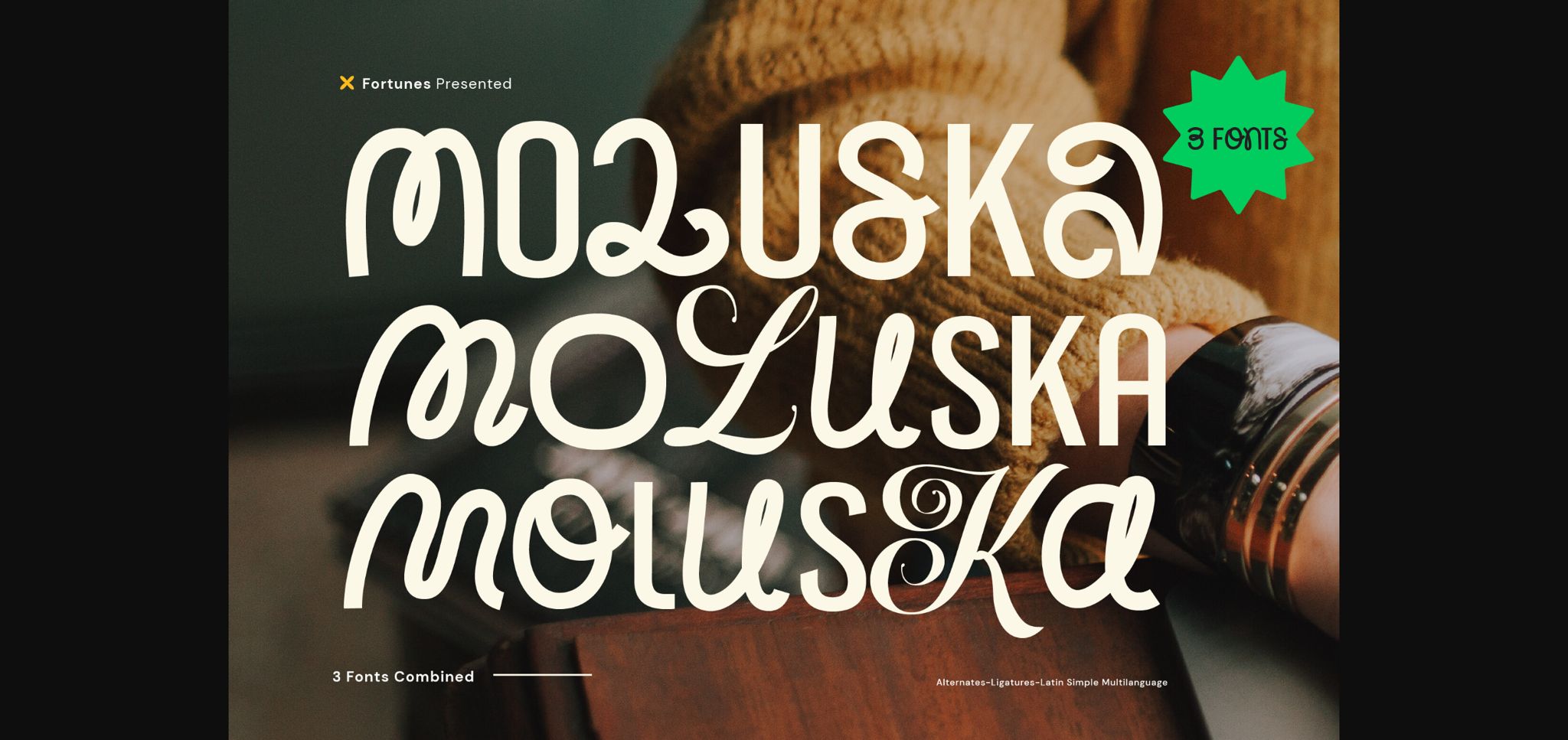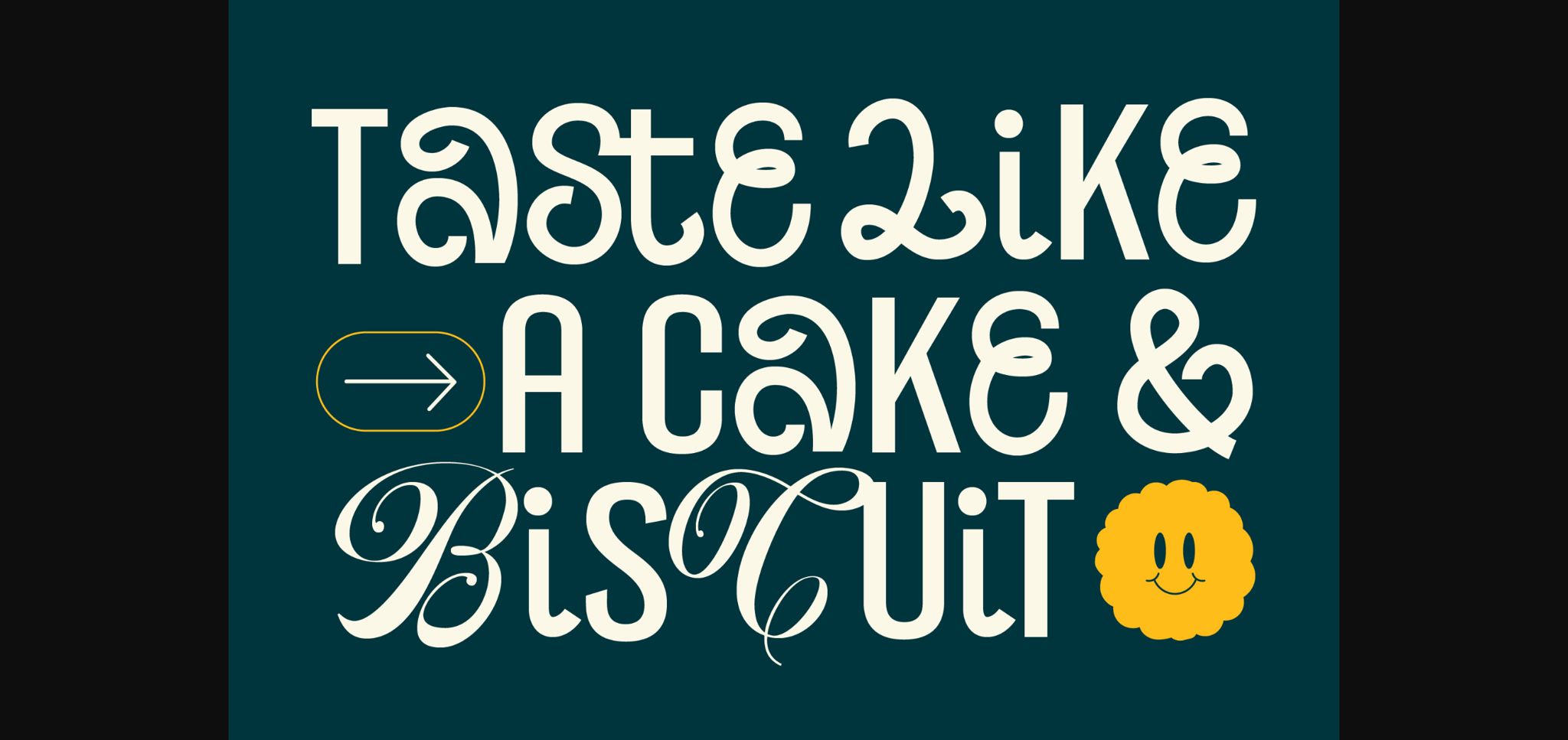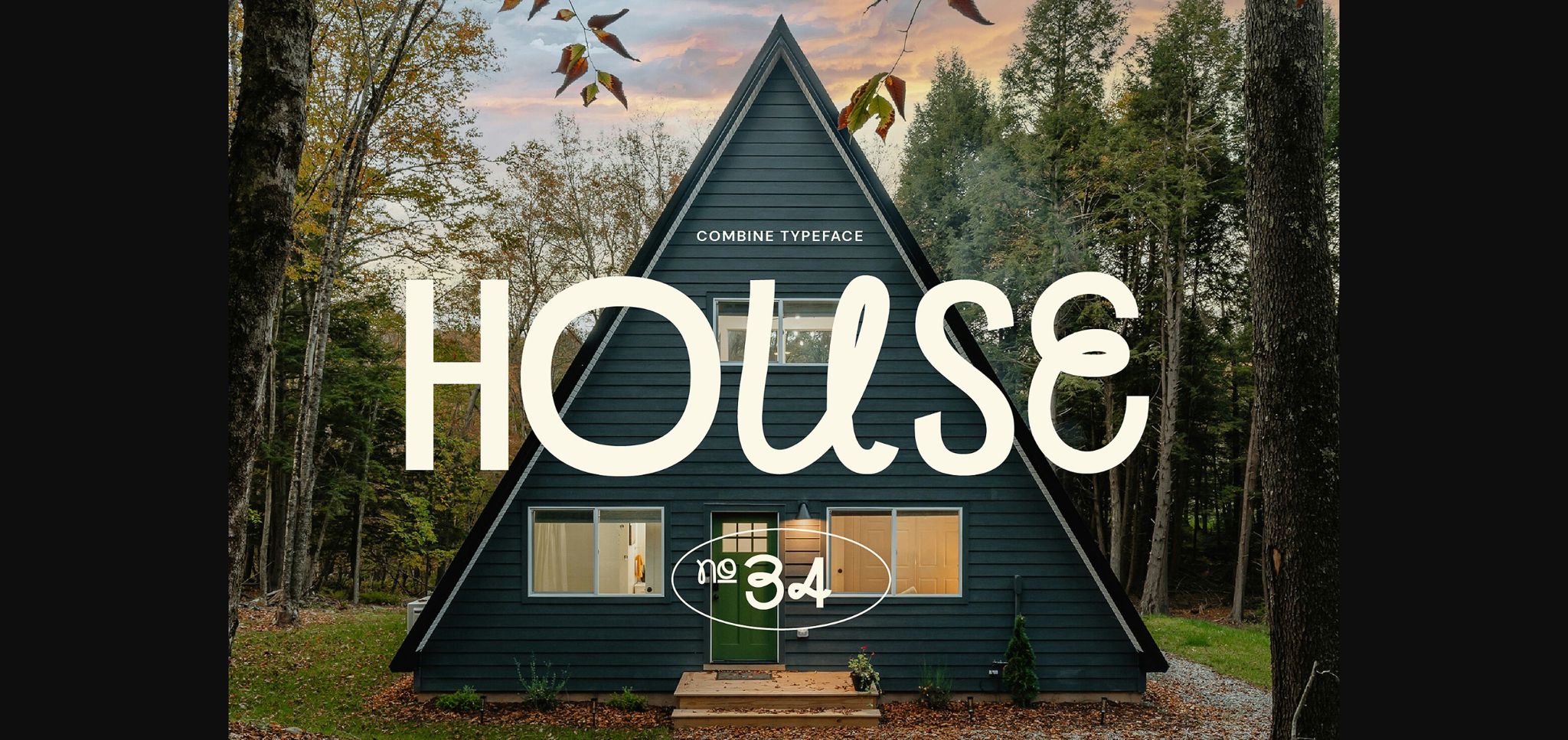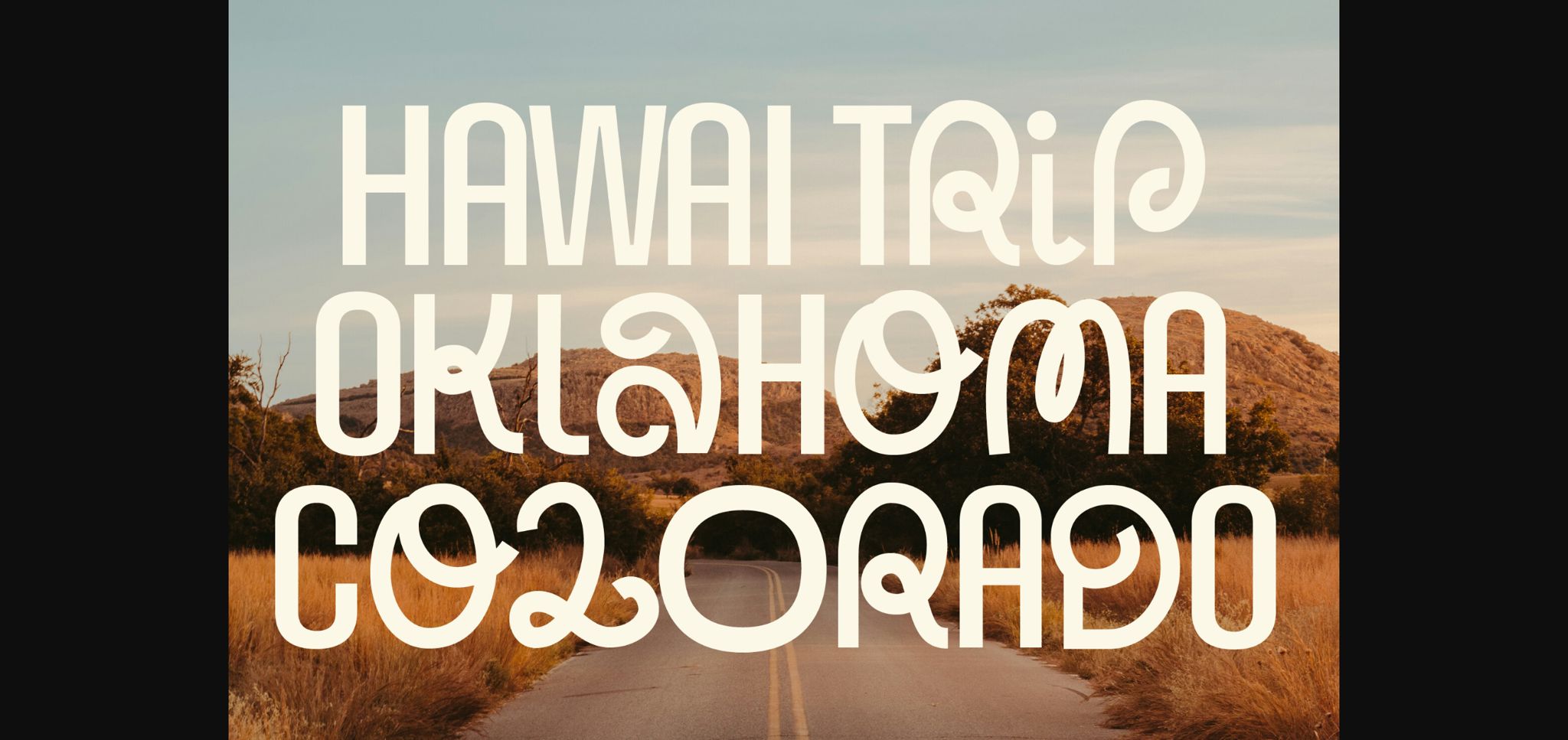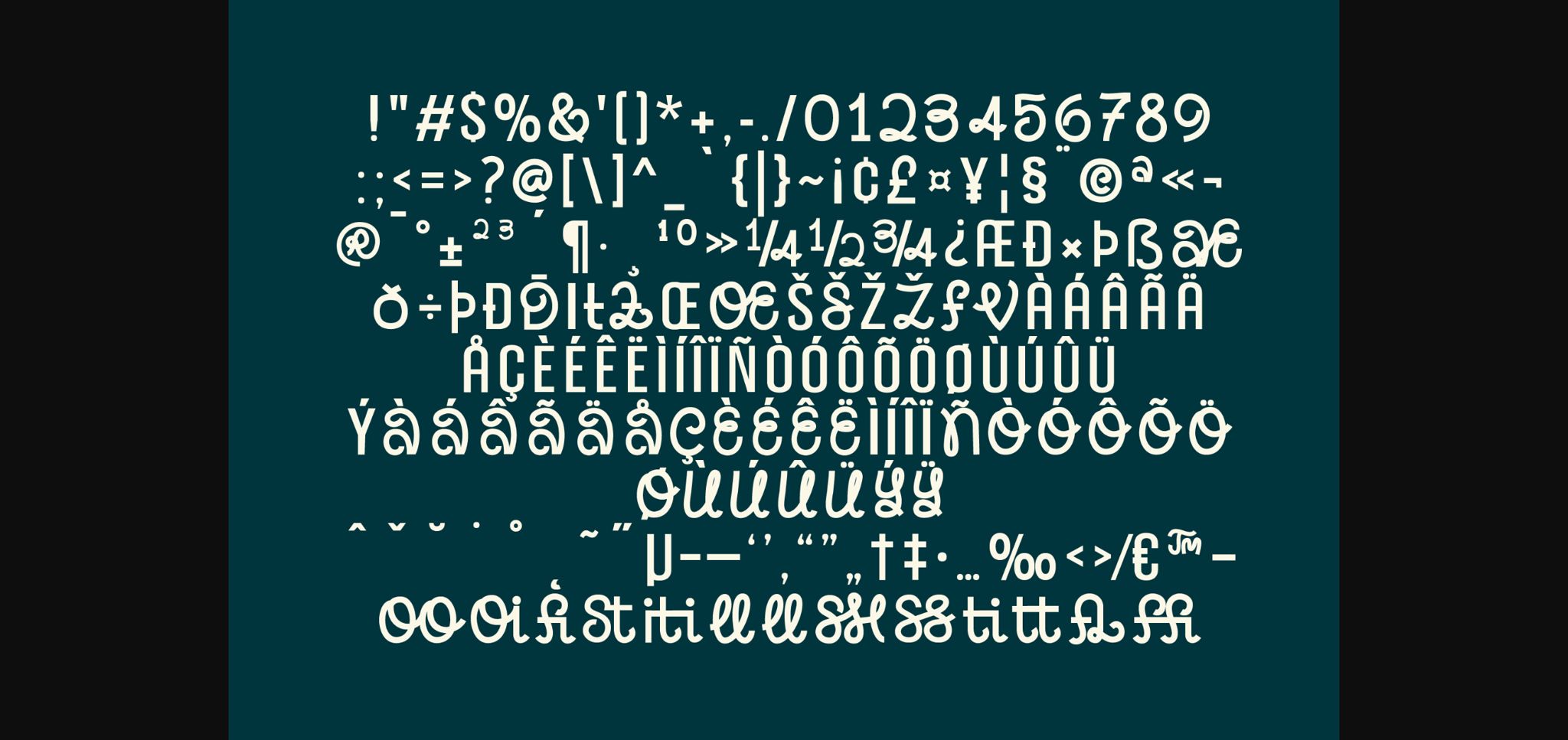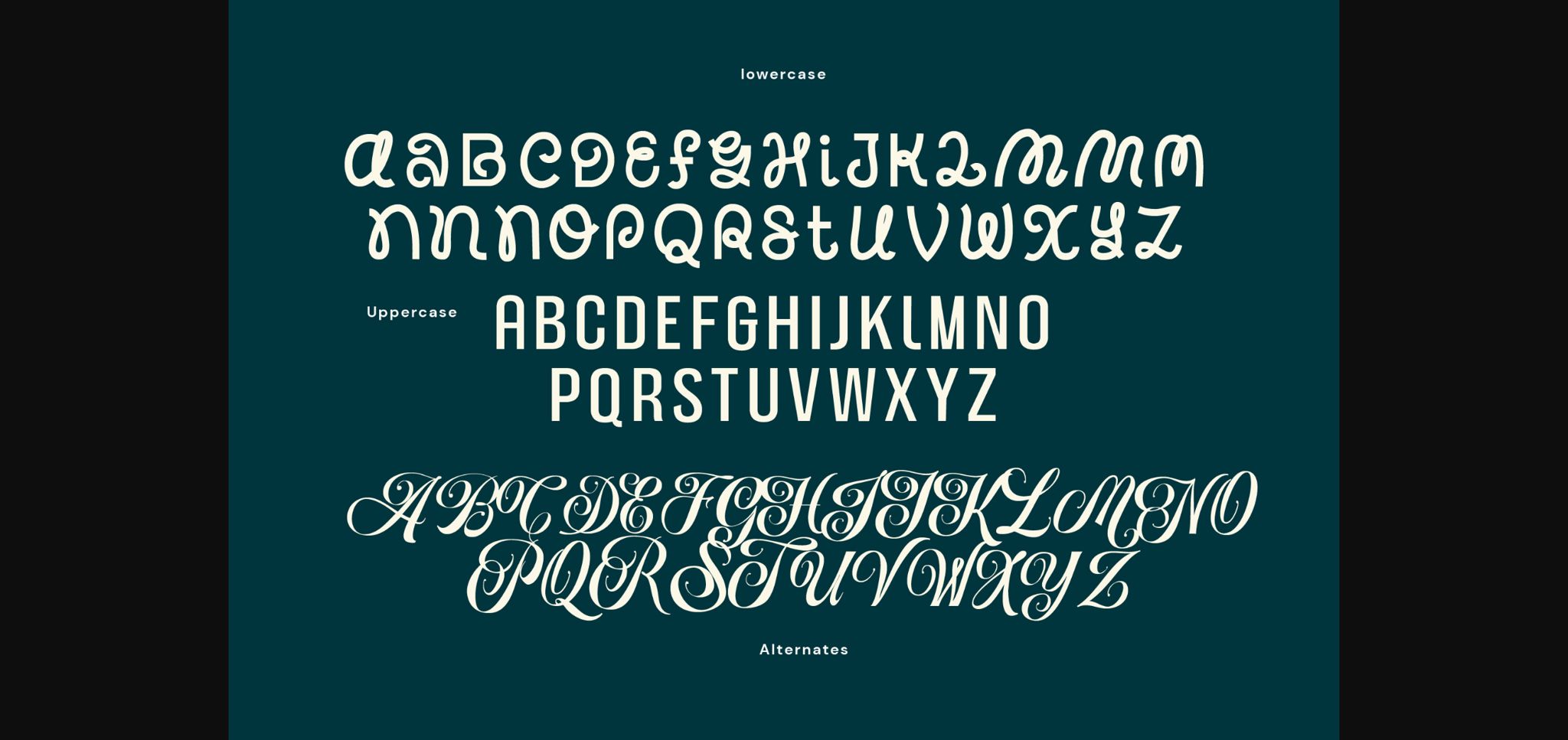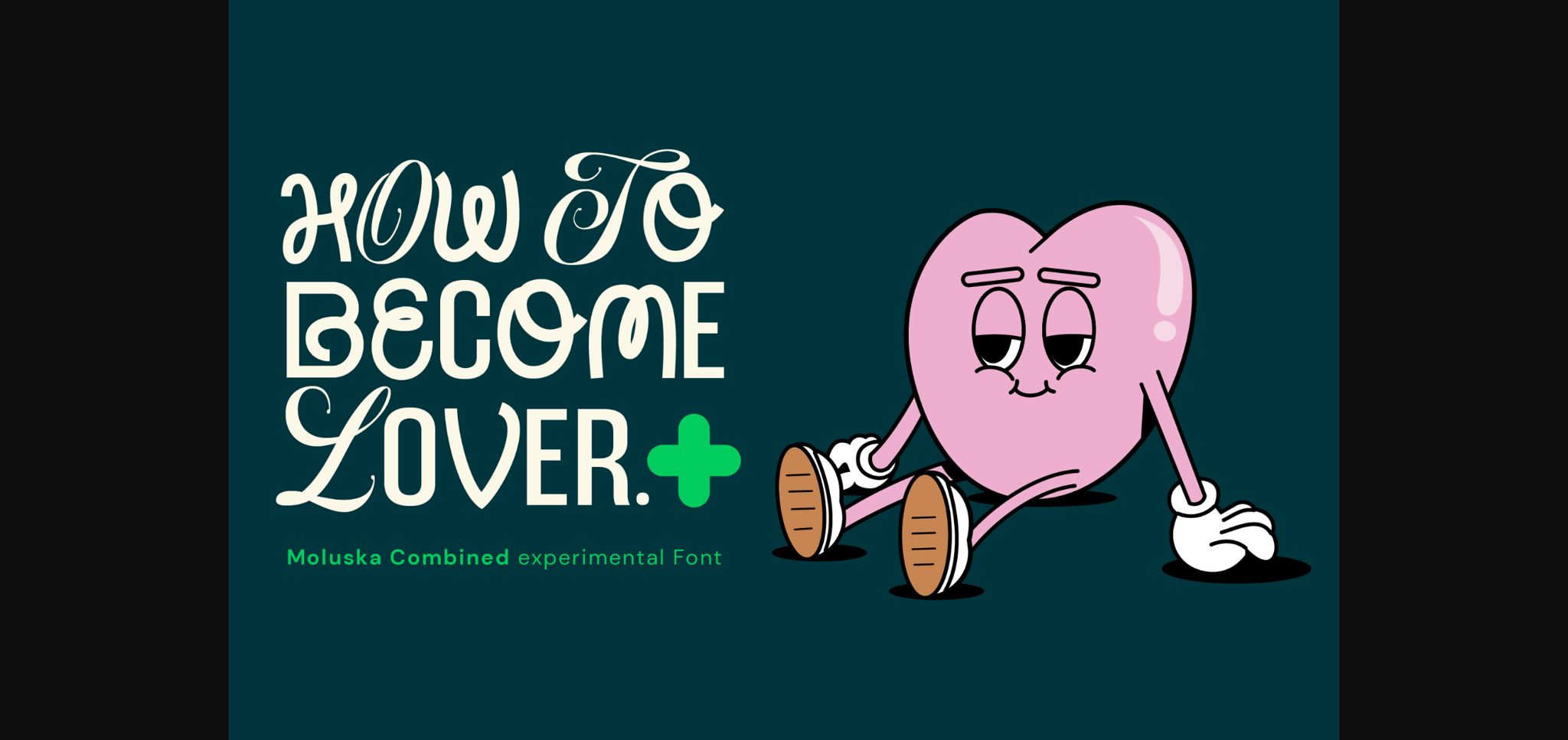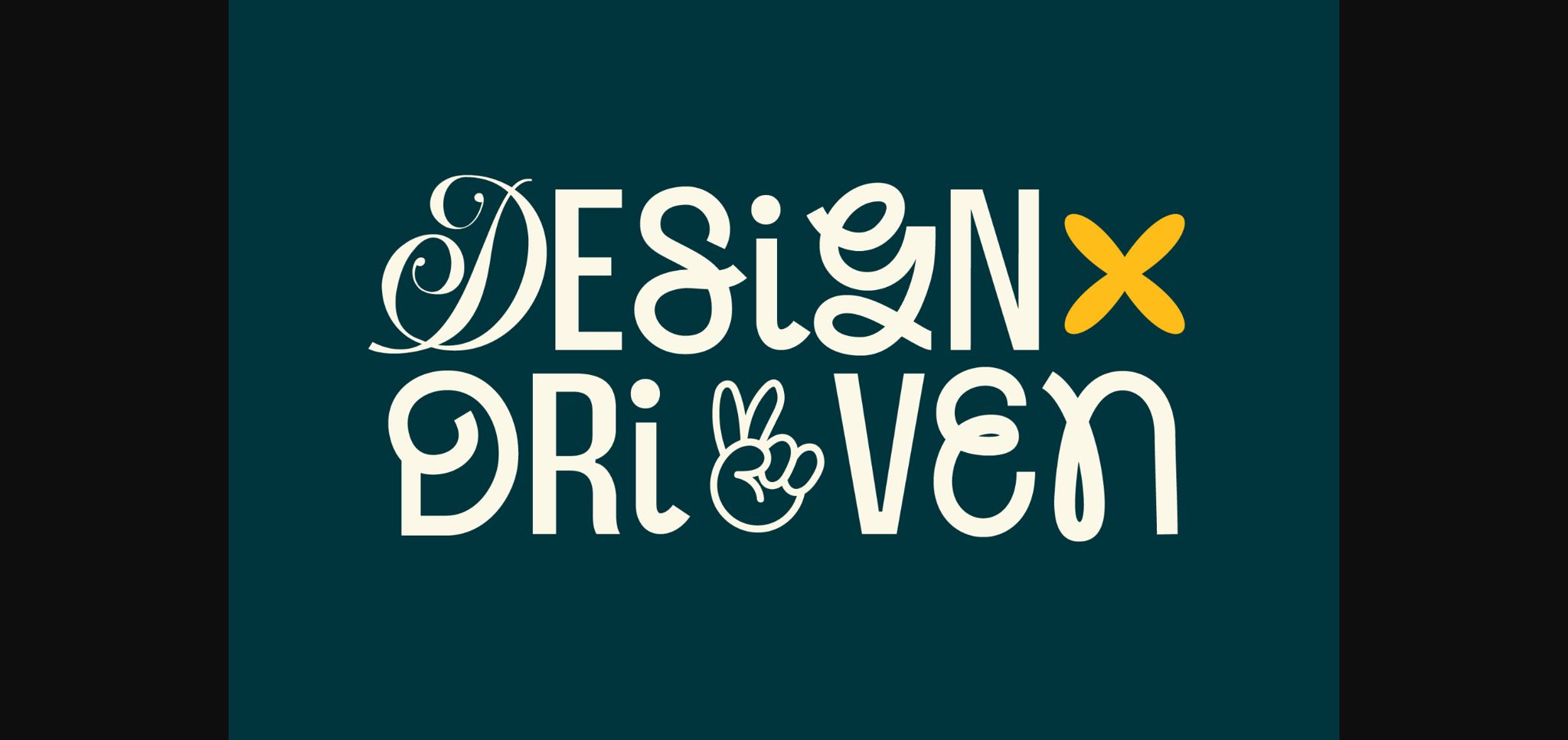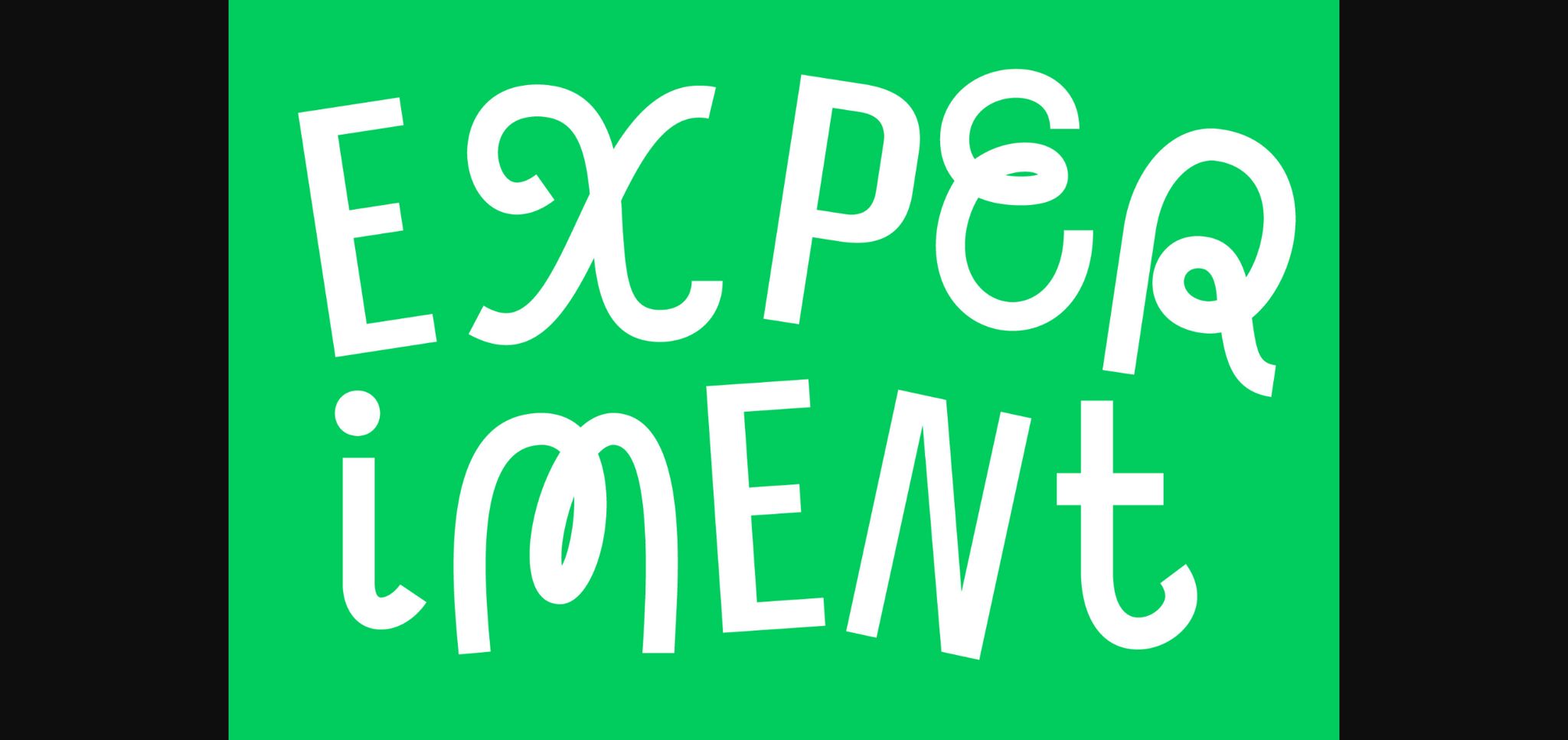
Moluska Font
About Moluska Font
Moluska is an experimental combination font. include 3 fonts that have a very different style and appearance, making this font look unique. In this groundbreaking typographic exploration, we venture into the intersection of sans serif and script typefaces, melding two seemingly disparate styles into a harmonious and visually captivating experiment.
This font is equipped with several features such as alternative characters, ligatures, and multi-language support that make it easier for you to design. This font is perfect for your design needs such as poster design, logo design, branding, social media design, book, magazine, etc.